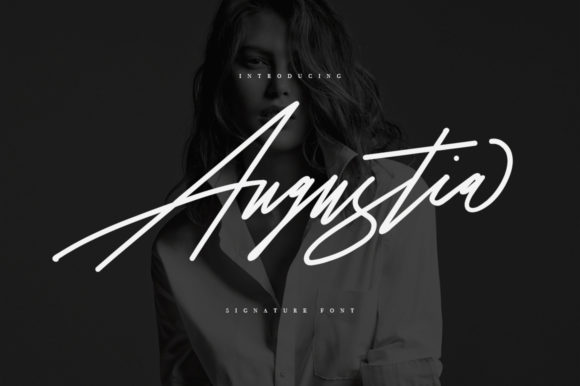
Welcome to the world of Augustia, an undeniably stylish and charismatic script font, distinctively designed by Maulana Creative. Augustia is crafted to infuse your designs with a touch of handwritten charm and sophistication.
Indulge in the allure of this elegant font, meticulously created to bring an element of artistry and grace to your projects. With its charismatic swirls and delicate strokes, Augustia effortlessly adds a personal touch that captivates and enchants.
Unleash the versatility of Augustia and let your imagination run wild. Whether you're crafting heartfelt invitations, designing enchanting greeting cards, or personalizing your brand's logo, Augustia beautifully adapts to your every need. Its innate charm shines through, adding a touch of elegance and sophistication to any creation.
With Augustia at your fingertips, you'll elevate your designs to new heights. Create stunning quotes that resonate with emotion, grace your business cards with a touch of professionalism, and bring life to logos that exude a timeless allure. The possibilities are limitless.
Augustia's beauty extends beyond mere aesthetics. Its carefully crafted letterforms ensure effortless readability, making it the perfect choice for restaurant logos. Entice potential customers with a logo that reflects the essence of your culinary haven – one that speaks of delectable delights and unforgettable dining experiences. Augustia beautifully captures the essence of culinary artistry, inviting food lovers to embark on a gastronomic journey like no other.
So, whether you're a seasoned designer, a creative entrepreneur, or simply someone with a passion for beautiful fonts, Augustia awaits you. Experience the magic of handwritten elegance and add a captivating touch to your designs. Immerse yourself in the world of Augustia and unlock a realm of infinite creative possibilities.